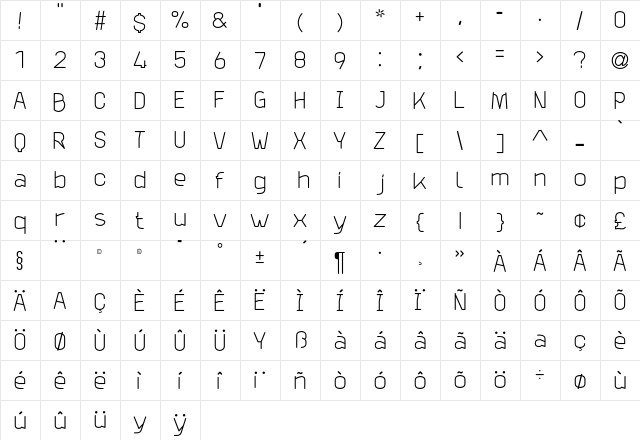
Launderette Wash
Design Context for Launderette Typeface
Launderette offers clean, dependable letterforms without strong stylistic allegiance, making it a practical choice for designers who need flexibility.